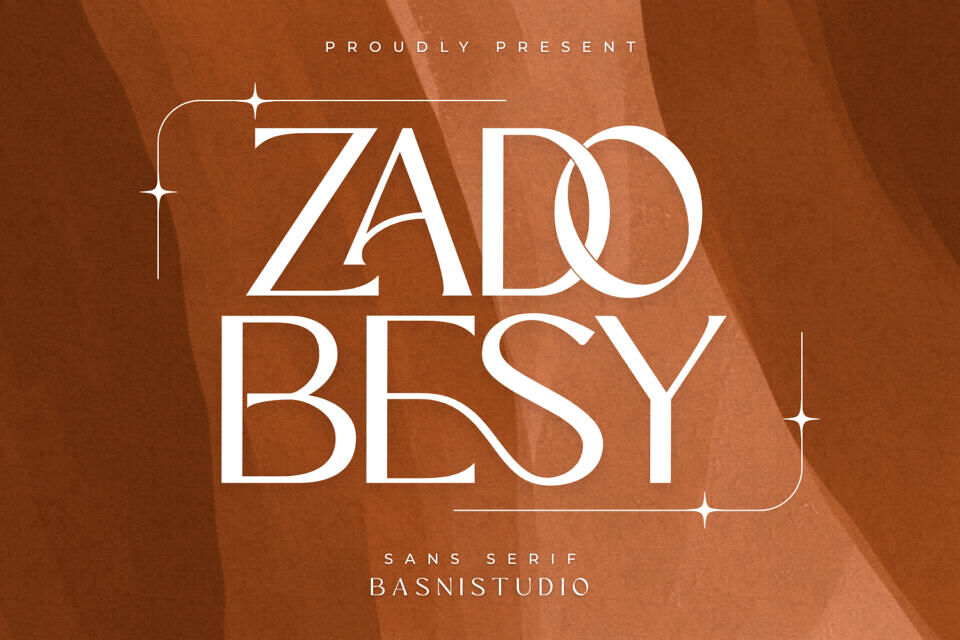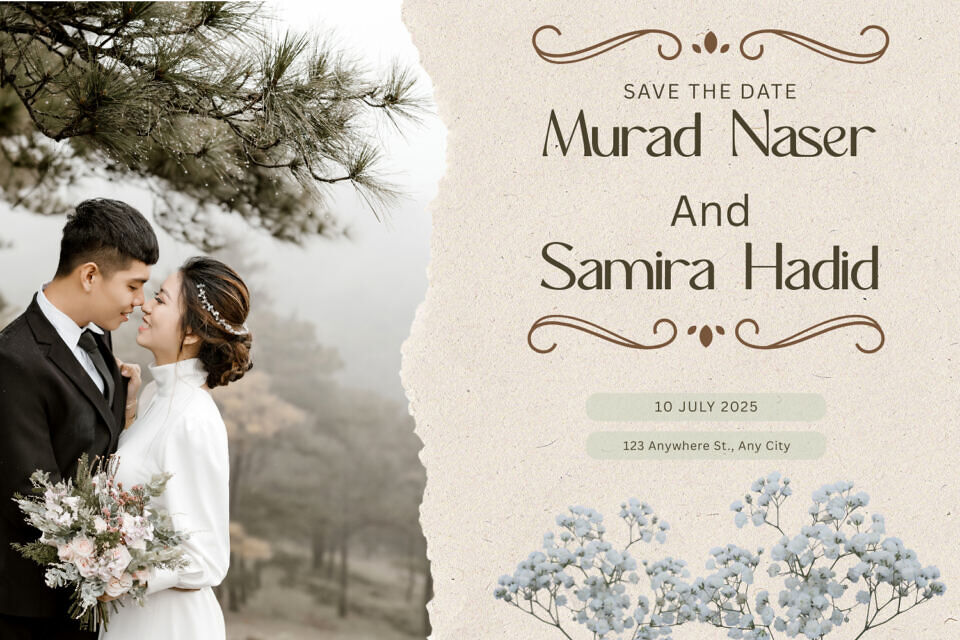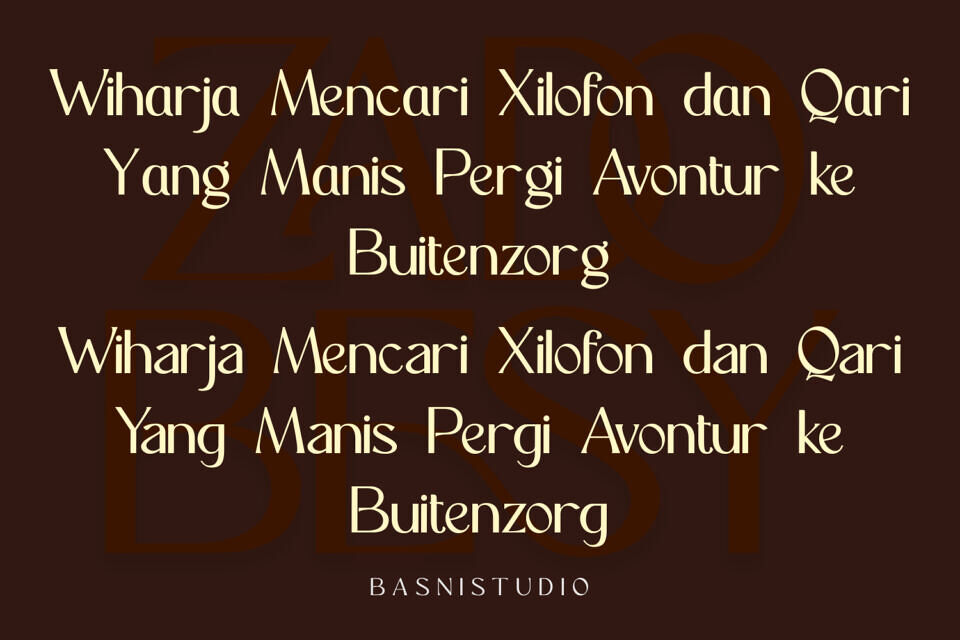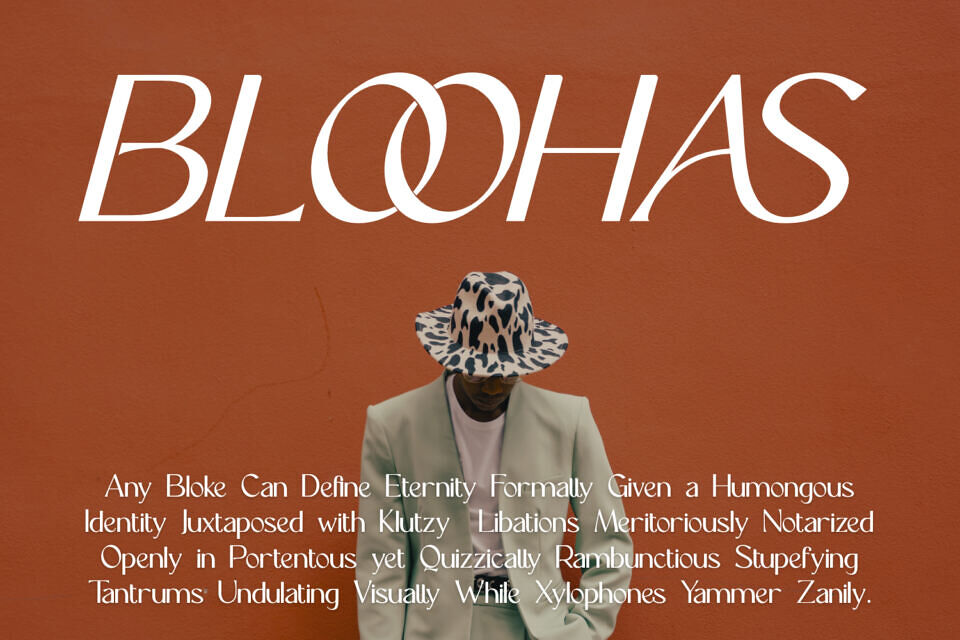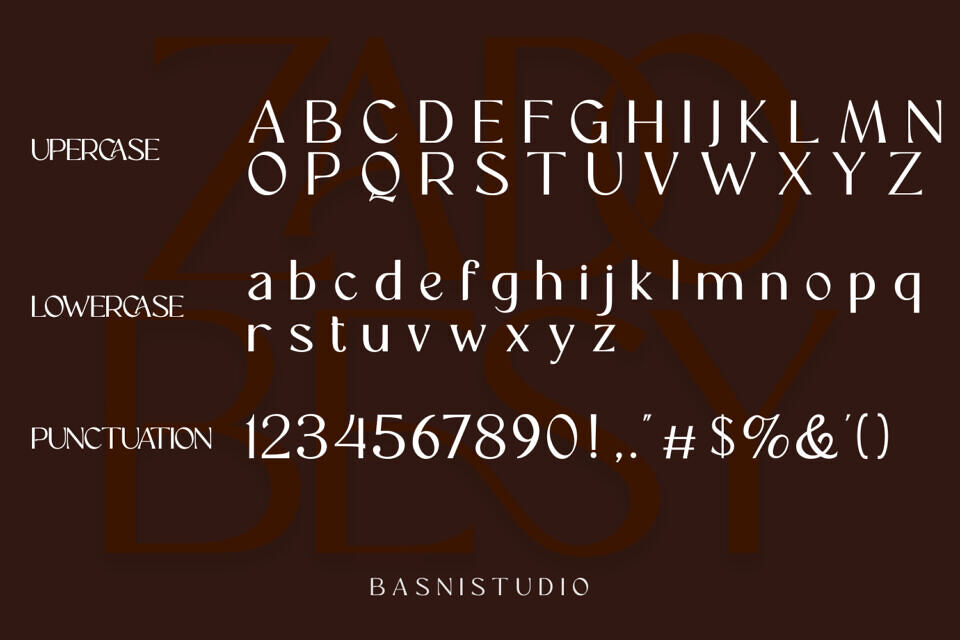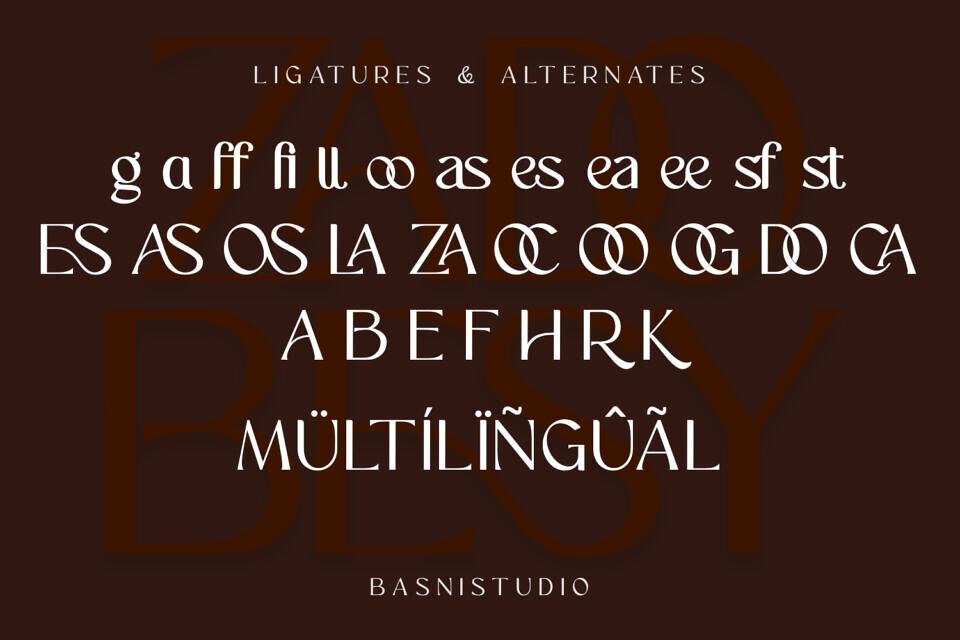
Introducing ZADOBESY, an elegant sans serif font crafted with Precision nodes for a modern, minimalist and casual touch for everything from branding and social media to invitations and packaging.
Whether you’re building a powerful brand identity or crafting a standout design, ZADOBESY, an elegant sans serif font crafted with Precision nodes for a modern, minimalist and casual touch gives you the creative edge you need.